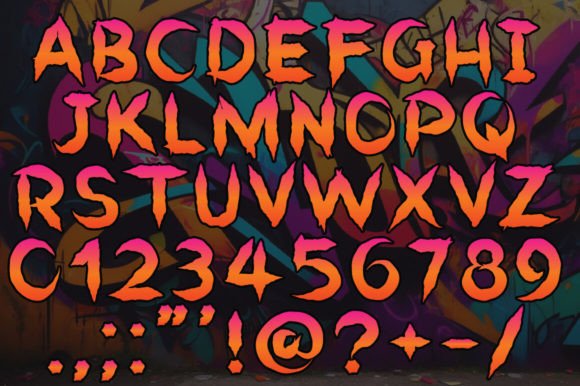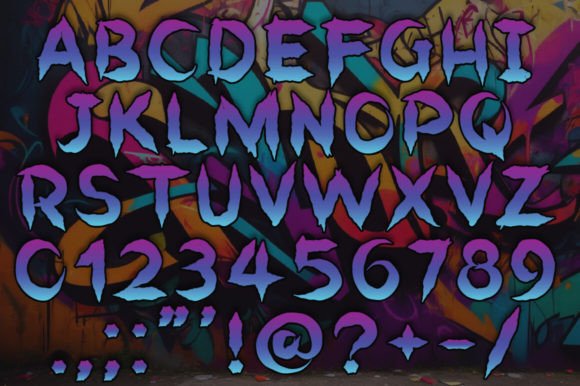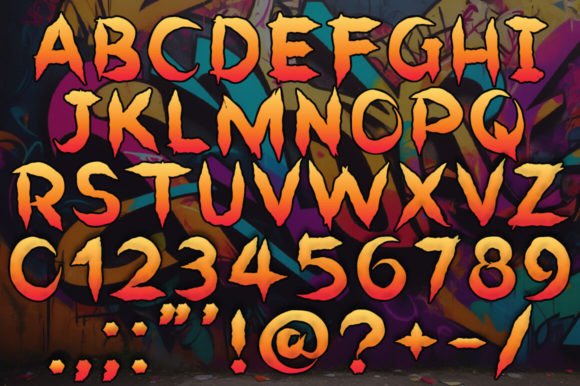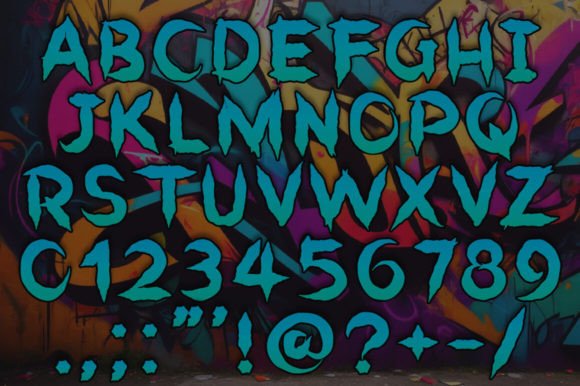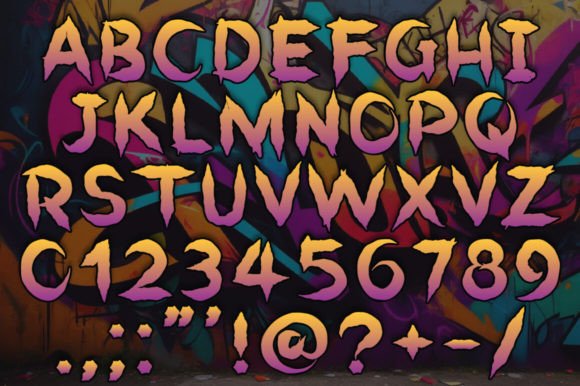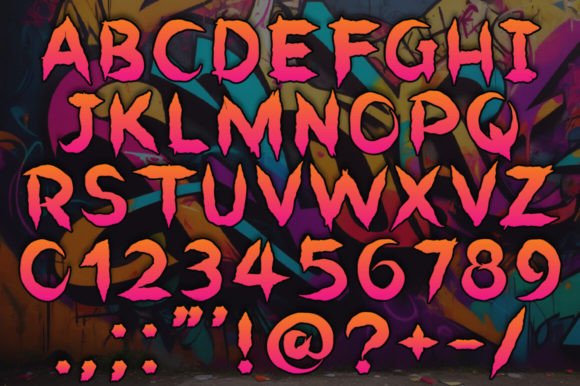
Unleash Your Creativity with Graffiti Art Font: Where Typography Meets Urban Masterpieces
Welcome to the vibrant world of Graffiti Art Font, where the boundaries of typography and street art converge. This innovative font is designed to inject your designs with the dynamic energy of urban landscapes, characterized by its lively spirit, captivating color gradients, and edgy vibe. With Graffiti Art Font, you can transform your words into stunning art pieces that demand attention.
The Essence of Graffiti Art Font
Graffiti Art Font is more than just a typographic style; it’s an experience. Inspired by the raw, unbridled creativity of street walls, this font embodies the rebellious and artistic spirit of graffiti. Its unique design features bold lines, vibrant colors, and a dash of urban grit, making it perfect for designers and crafters looking to add an edge to their work.
Key Features of Graffiti Art Font
• Lively Spirit: Graffiti Art Font is infused with the energetic and playful vibe of street art, making it ideal for projects that require a bold and youthful approach.
• Captivating Color Gradients: The font’s color version boasts stunning gradients that add depth and dimension to your designs, setting them apart from the ordinary.
• Edgy Vibe: With its bold lines and urban feel, Graffiti Art Font is perfect for designers who want to push the boundaries of traditional typography and create something truly unique.
Design Tips:
• Experiment with Colors: Don’t be afraid to try out different color combinations to find the perfect match for your design.
• Play with Gradients: Take advantage of the font’s gradient capabilities to add depth and visual interest to your designs.
• Mix and Match: Combine Graffiti Art Font with other typography styles to create unique and eye-catching compositions.
Graffiti Art Font is more than just a font – it’s a creative movement. By infusing your designs with the lively spirit of street art, you can turn ordinary words into extraordinary masterpieces. Whether you’re a designer, crafter, or DIY enthusiast, Graffiti Art Font offers a world of possibilities for self-expression and artistic exploration. So why wait? Download Graffiti Art Font today, and unleash your creativity on the world!